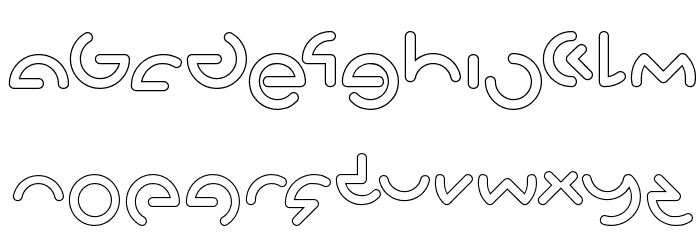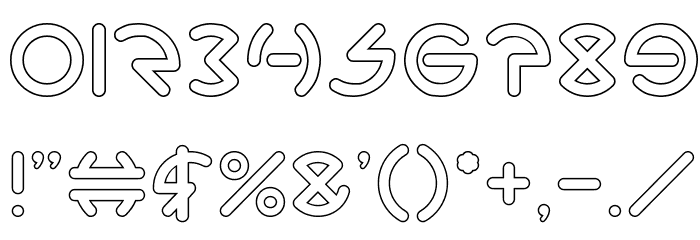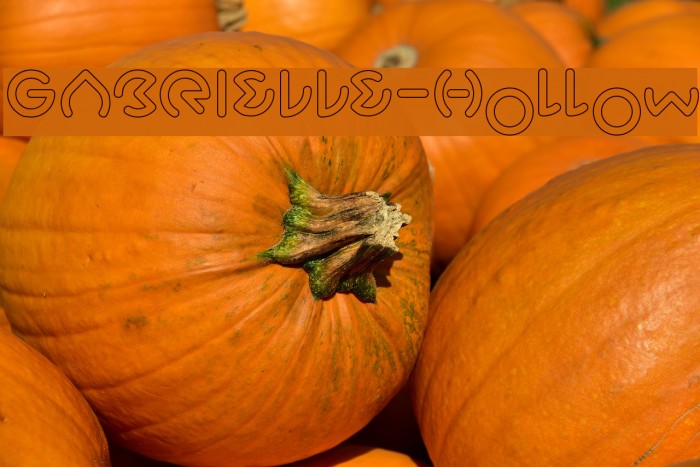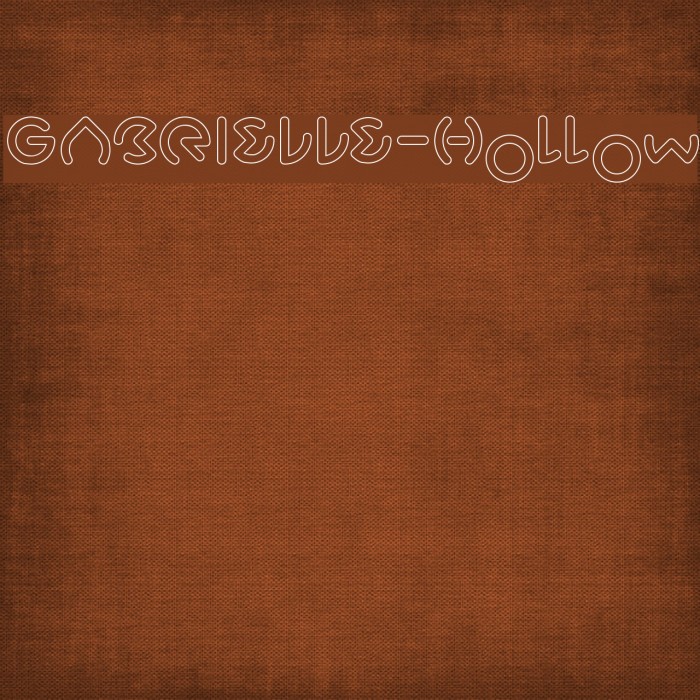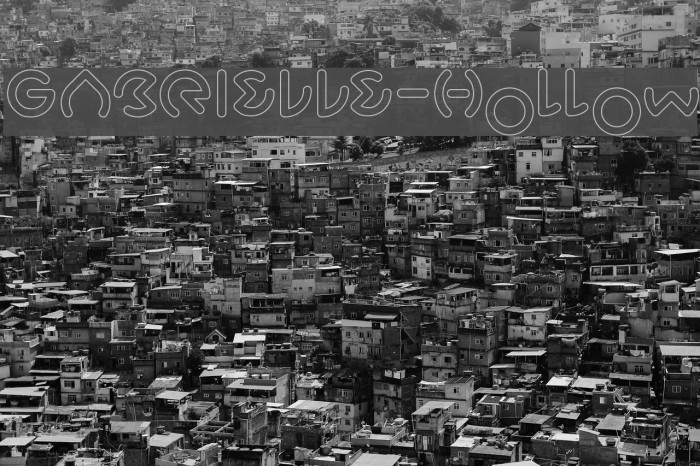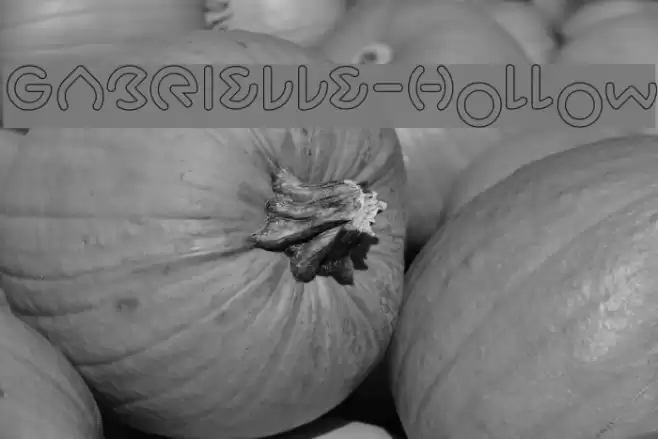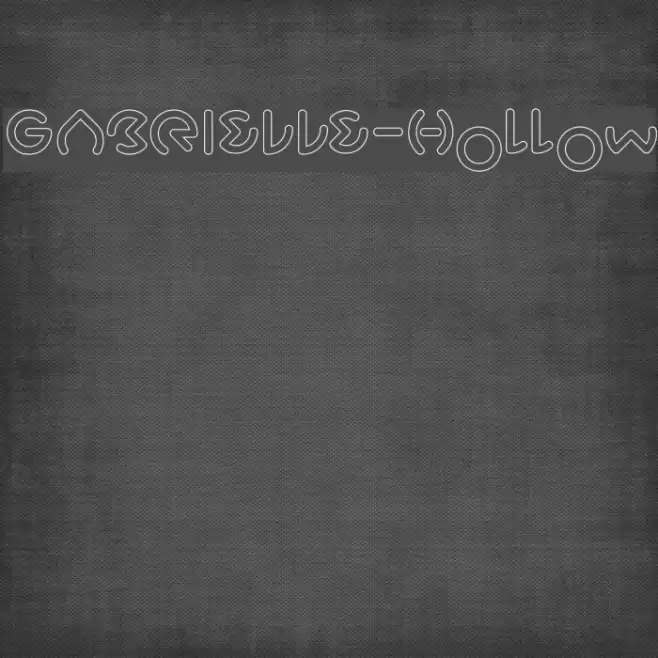
GABRIELLE-Hollow Font
This font features a unique hollow design with a futuristic and geometric aesthetic. The characters are outlined, creating a sense of openness and space within each letterform. The style is consistent across uppercase, lowercase, numbers, and special characters, maintaining a uniform look. The curves and angles are smooth and precise, giving it a modern and sleek appearance. This font stands out with its creative and artistic flair, making it ideal for projects that require a distinctive and eye-catching typeface.
A futuristic, hollow, and geometric font with a modern aesthetic.
- Proposed Projects: Ideal for branding, logos, posters, and digital media where a modern and artistic touch is desired.
- Use Case: Logos, Posters, Digital Media